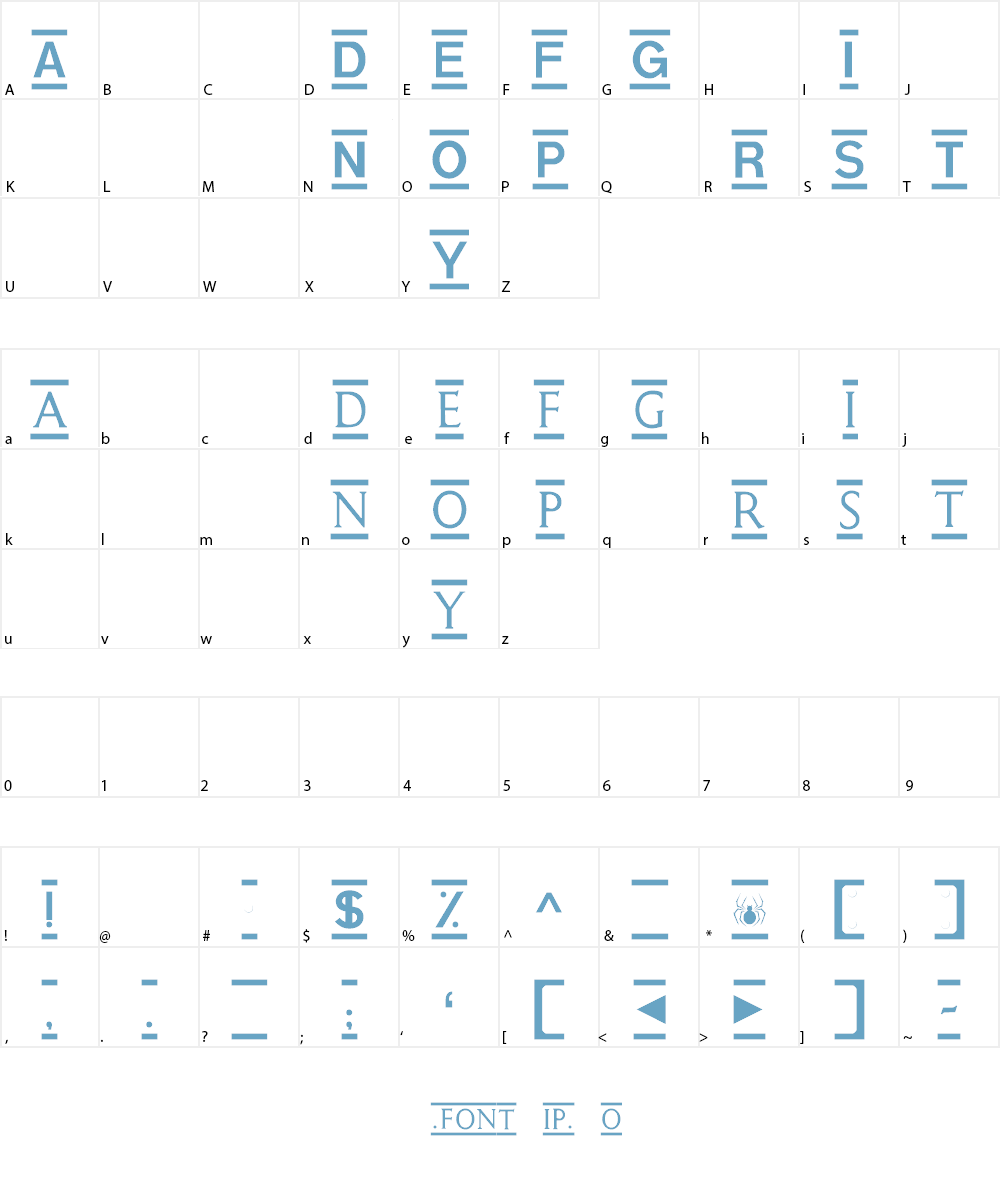
It's something most of us see everyday and never really see the signs. After the success of our UK License Plate typeface we decided to show you the signs by posting SIGNPOST our first box bordered typeface of 2018. This typeface was originally created in 2015 but never officially released in that year as a lite version donationware font however after watching a recent BBC documentary about the Hidden Homeless I have decided to release the full version.